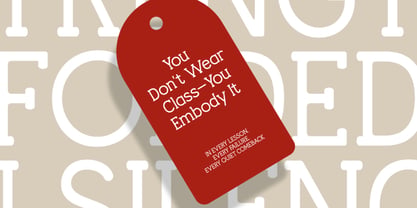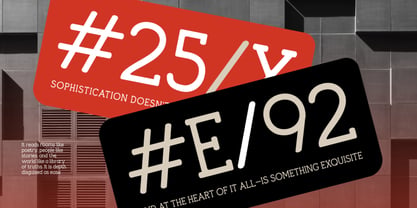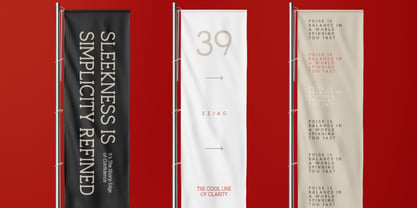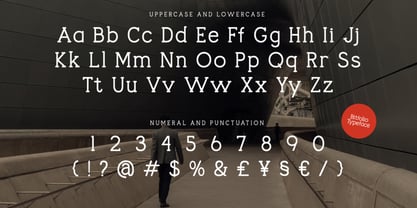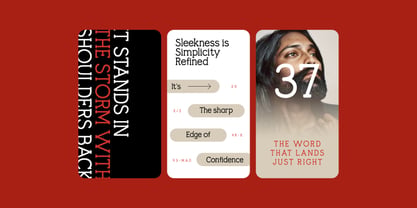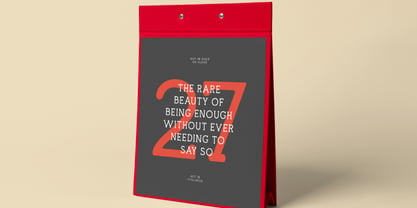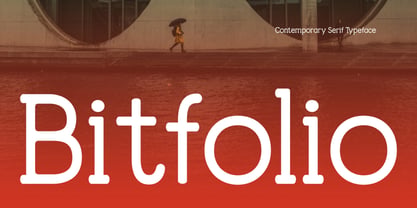
Bitfolio
by Vadova Std
Bitfolio is a contemporary serif typeface that balances precision with personality. With a refined yet approachable style, it radiates modern elegance and warmth making it ideal for brands looking to stand out with both authority and charm. The font’s energy is sleek and composed, projecting sophistication without feeling stiff. Suitable For branding, editorial layouts, modern packaging, fashion campaigns, lifestyle content, minimalist advertising, digital publishing, product labels, luxury web design, signage systems, portfolio showcases, personal blogs, e-commerce headers, pitch decks, and magazine spreads.